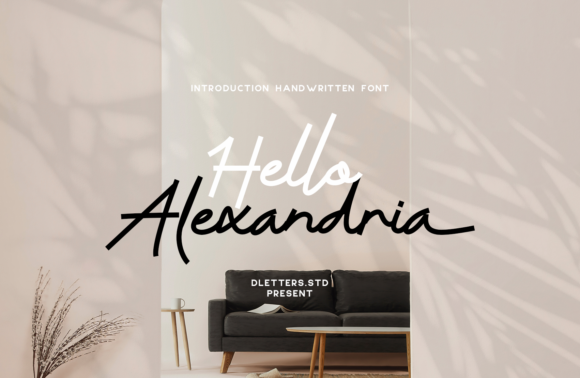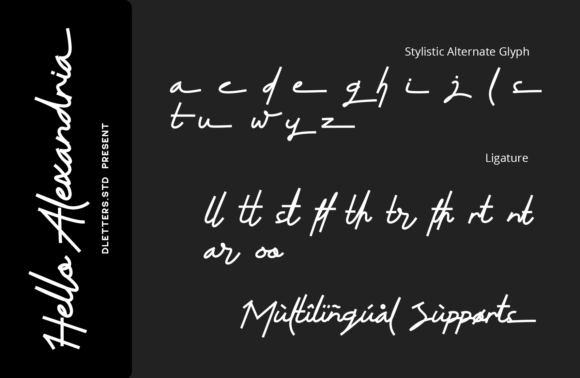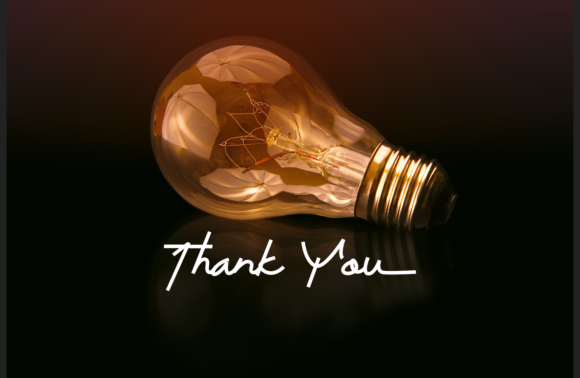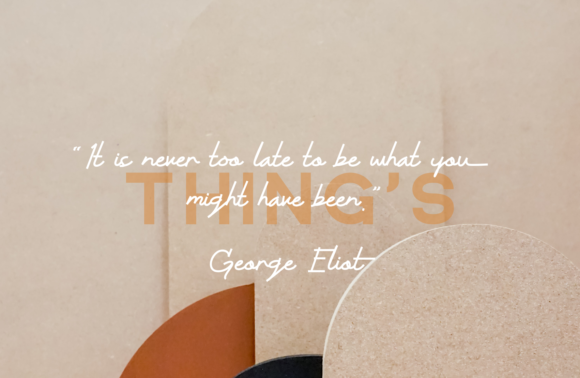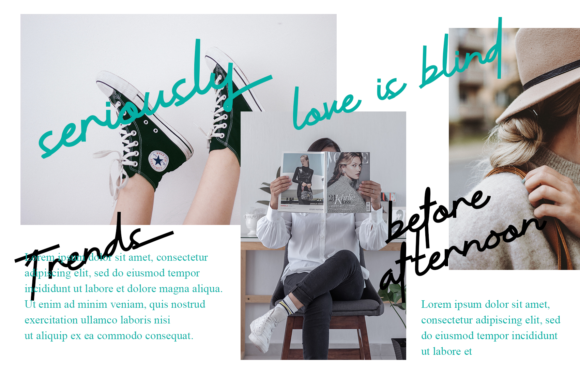
About Hello Alexandria Font
Hello Alexandria is a unique and elegant handwritten font. It looks beautiful on a variety of designs requiring a personalized style, such as wedding invitations, thank you cards, weddings, greeting cards, logos and so on.